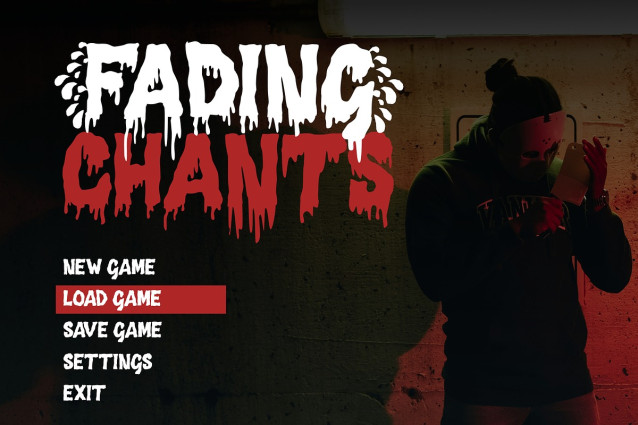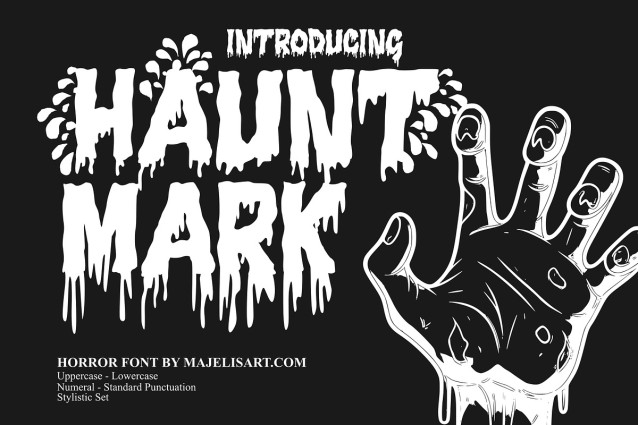
Hauntmark Horror Font
Hauntmark Horror Font is a horror-themed font designed to bring a chilling, eerie, and mysterious atmosphere to your projects. Perfectly suited for horror movie posters, thriller book covers, dark comic titles, Halloween designs, merchandise, and any creative work that needs a terrifying touch.